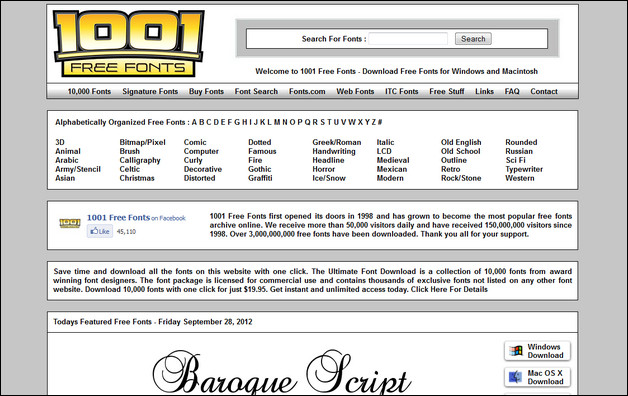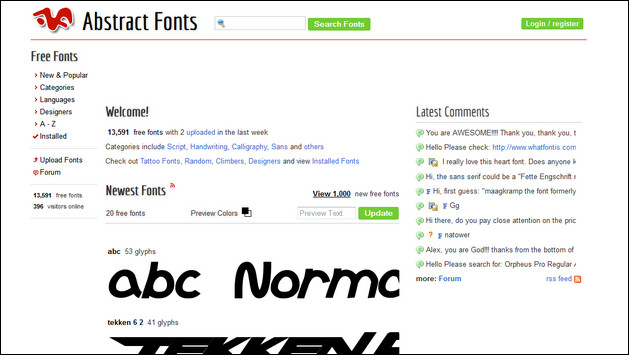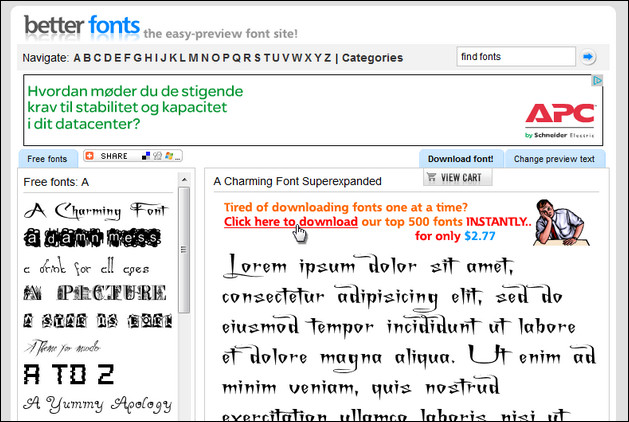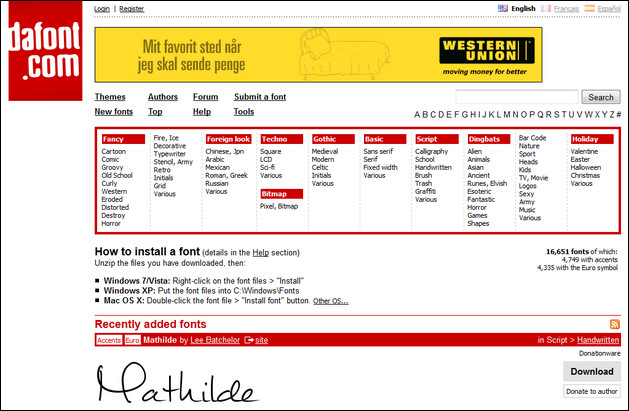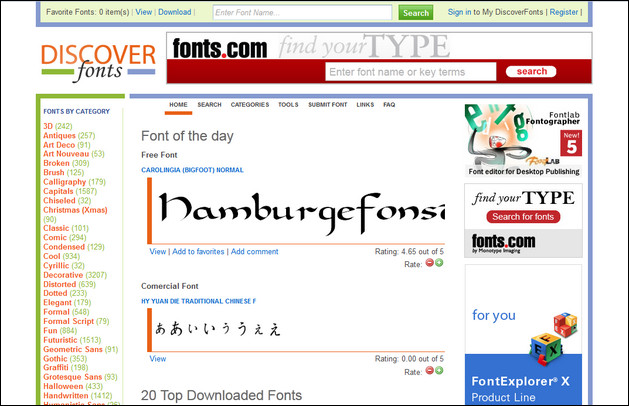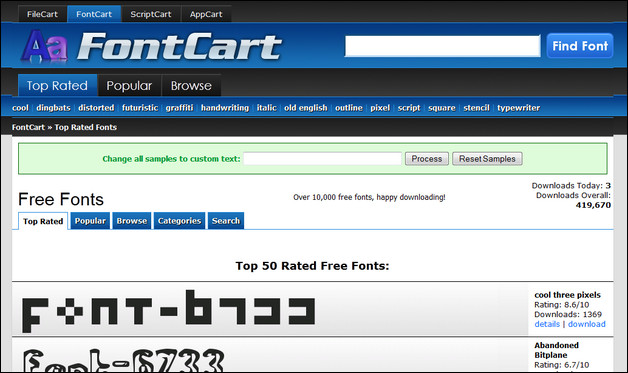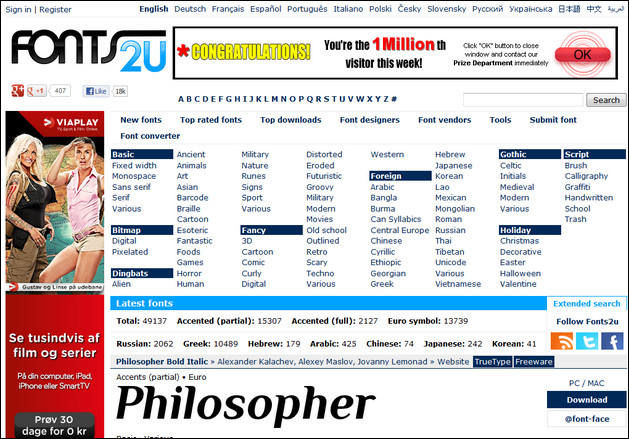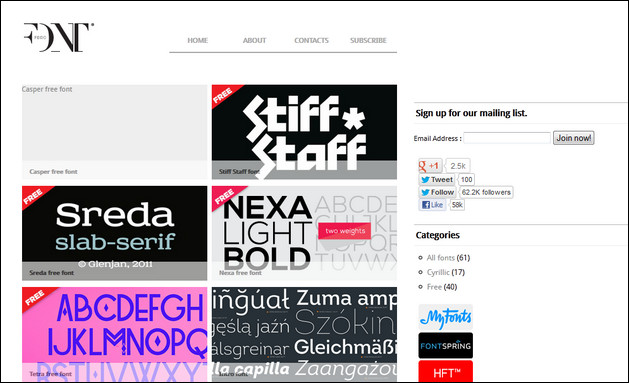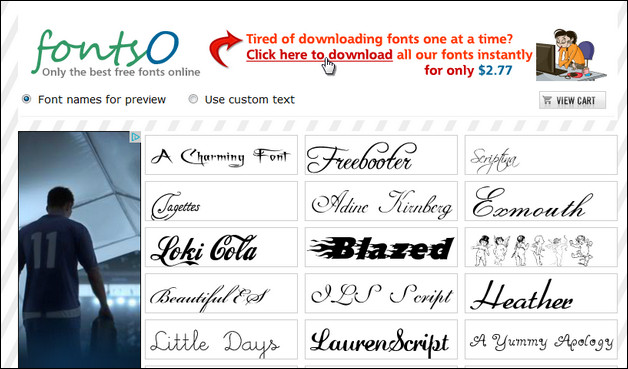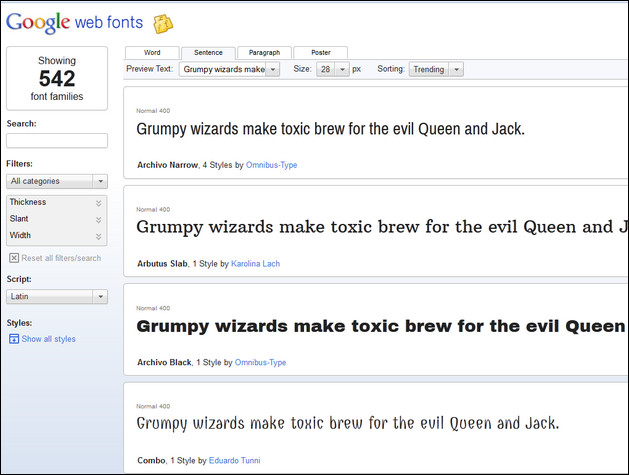
There many great websites out there where you can download free fonts and why not have them all put together in one place? As you probably know of the right font can really make a difference and support a great concept regardless if you’re designing a new logo, web template, poster etc. Generally you can never have enough fonts at your disposal and the more choices you have, the better your chance is to find the perfect one for your typography designs
This article provides one of the largest collections of Font Resources and Directories and will be your doorway to most of the Free Fonts available through the Internet! Cover image by protofonts at deviantart.com.
FontFabric
I like FontFabric a lot because the fonts are presented and showcased with nice typography art. This great inspiration and ideas for using the fonts.
Google Web Fonts
Google web fonts is always worth checking out if you design websites. The advantage is that fonts are downloaded on demand. This means that you can use fonts not available on the visitors computers. From a design perspective this is great as you do not risk that the design falls apart because a font is missing.
fontex
Fontex is a large font resource that besides suggesting good fonts for download also provides inspiration and usage ideas. You can also find fonts using search, most popular and best rated features.
Simply the best fonts
From the looks of this website you may think, hmmm when was this website build and updated – right? Behind the old fashion style you will find loads of free fonts categorized and easy to find.
Fonts2U
This site have over 20k free fonts nicely categorized and a good search function.
free-fonts
The free-fonts.com database contains more than 55.000 fonts – truetype, opentype, postscript type 1 typefaces.
SearchFreeFonts.com
SearchFreeFonts offers well over 13,000 fonts that are well categorized, and breaks down the 50 most popular for easy browsing. The site includes articles about the history and use of fonts and a very handy guide to various paid and free tools for designing, organizing and managing your fonts.
identifont
Very large font collection and information about fonts from 585 publishers and 158 vendors.
fontsy
On fontsy.com you find currently 4600+ free fonts. Of each free font you can create a custom preview in different sizes, see how looks like every character of that free font, write a comment and rate your favourite free fonts. Every font is categorised in one of 68 categories.
FontCubes
FontCubes is one of the very best font resources. Mainly high quality fonts that may easily be used in professional designs. The site is simple to use and provides a good overview of the available font there and the weigths and styles available for each font.
fontspace
Browse through a collection of 11,705 fonts that have been shared by designers around the world.
dafont
dafont is one of the biggest free font resources with literally thousands of fonts available for download. I’m pretty sure you can find what you need here but large does not necessarily mean good and that it is easy to find what you need.Give the smaller ones a chance too 😉
fontstock
Very large collection of fonts. Nice interface makes it easy to find what you’re looking for.
1001freefonts
Another simple site which is nice and easy to use. Big previews and nice big download buttons – the way it should be. If you are willing to pay a small amount of money this site will allow you to download 10.000 fonts… hmm why not?
abstractfonts
This site is also a huge resource with more than 12.000 free fonts online. The site has a nice ajax powerd interface that makes it nice to work with. Good large previews.
Cal Henderson
Small collection of pixel fonts for both Windows and Apple.
steffmann
Here you find an ok large collection of Fonts created by Dieter Steffmann. The Fonts are not new but they look good and you should give them a try.
Divide By Zero Fonts
You find a few fonts here that are creative and hand drawn in style
Font connection
studio1webdesign
Font Heaven